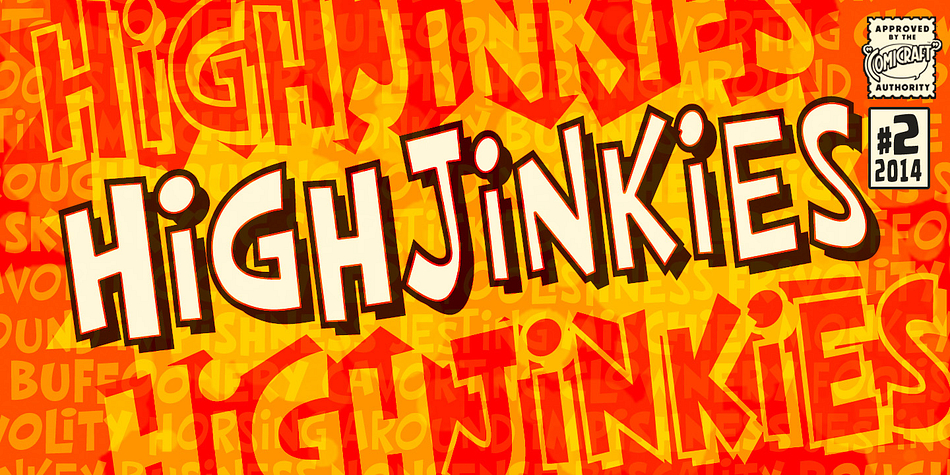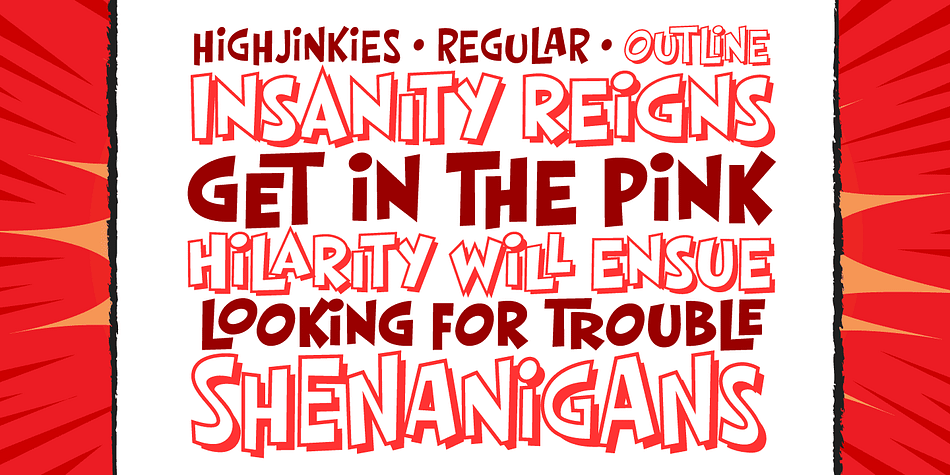
Designed by John Roshell, High Jinkies is a comic and hand display font family. This typeface has four styles and was published by Comicraft.
It’s jaunty and flaunty and up to no good! It’s a child born of fairly odd parents and alway looking for the good kind of trouble. It’ll get you out of the red and into the pink like a panther pawning diamonds! Comicraft’s John Roshell has slipped his hands into the gloves of the Phantom Font Finagler and there’s HighJinks ahead to be sure!